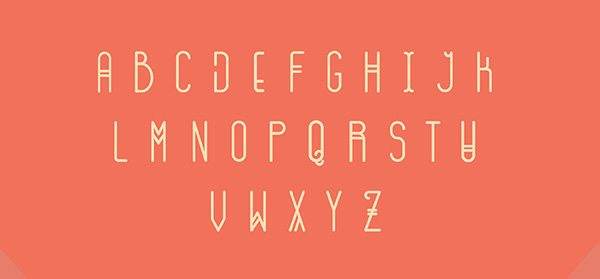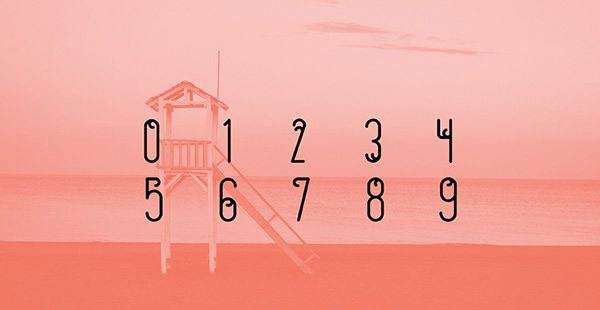
Gogóia
Free Font Of The Day #136 – Gogóia Font
Gogóia Font
The Font is a yummi juicy font inspired by brazilian tropicalism. It is also a very thorn fruit that grows on a dry weather. And guess what: gogóia is also a song very known on gal costa’s voice. This font is available for free under creative commons license, and you can use it for both personal and commercial projects. Designed by Alan de Sousa.